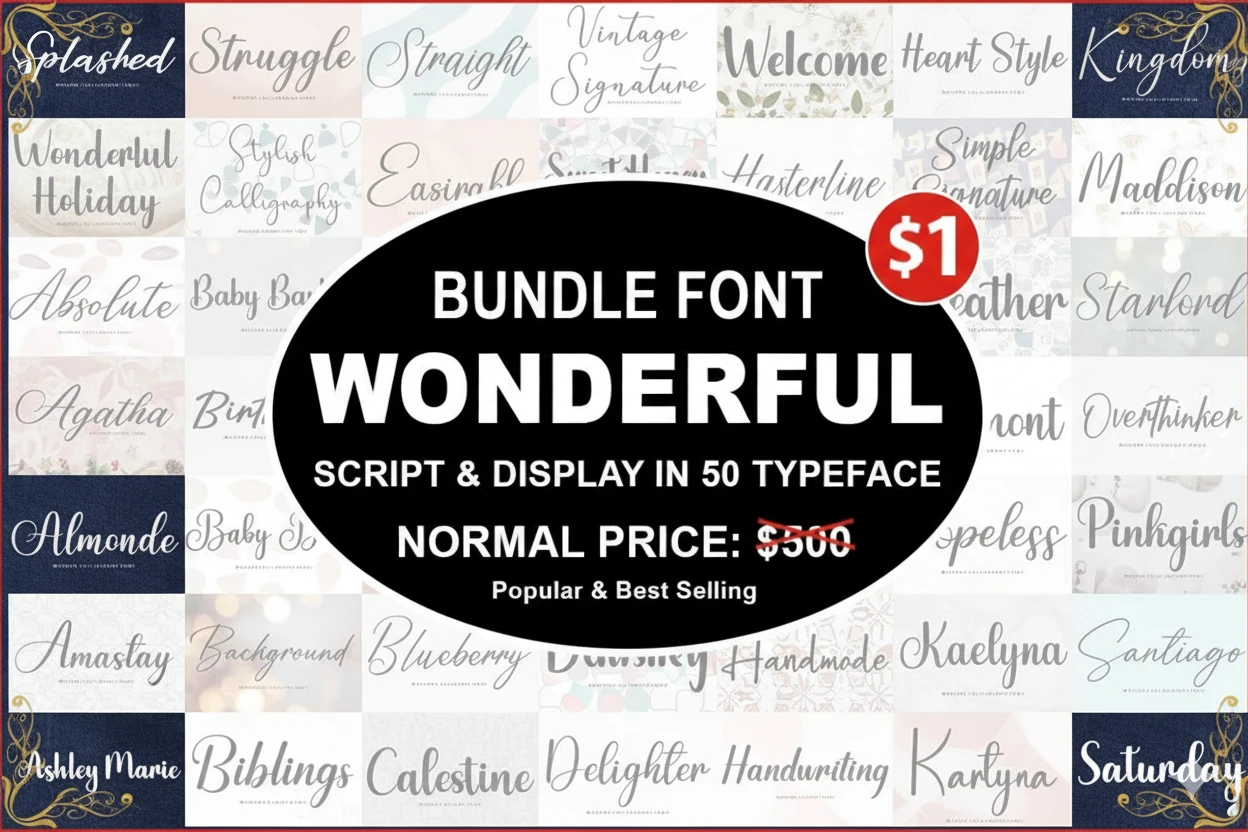
Wonderful Font Bundle – 50 Premium Script & Display Fonts
There’s something really useful about having a font bundle like this sitting in your design library. Not every project needs a super experimental typeface. Sometimes you just need reliable fonts that look polished without spending half an hour tweaking spacing and trying to “make it work.”
The Wonderful Font Bundle brings together 50 premium fonts across several styles, including script, serif, sans serif, display, signature, and calligraphy fonts. It’s the kind of collection that works well for everyday creative projects — especially branding, packaging, invitations, social graphics, and small business design work.
A Practical Bundle for Designers and Creators
If you regularly design for Etsy shops, Pinterest graphics, printable products, or branding kits, bundles like this honestly save a lot of time. You’re not searching for a single font every time a new project comes up.
That mix makes it easier to pair fonts together without needing outside typography packs. A clean sans serif combined with a textured script usually covers most modern branding layouts already.
I’ve also noticed that premium bundles tend to work better for packaging mockups because the kerning and overall balance feel more refined compared to random free fonts. Even subtle things like smoother curves or cleaner uppercase letters make logos look less “template-made.”